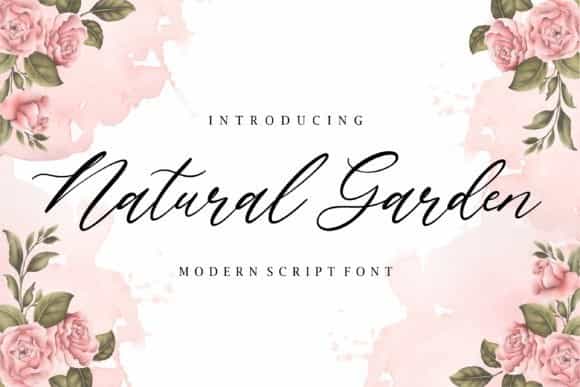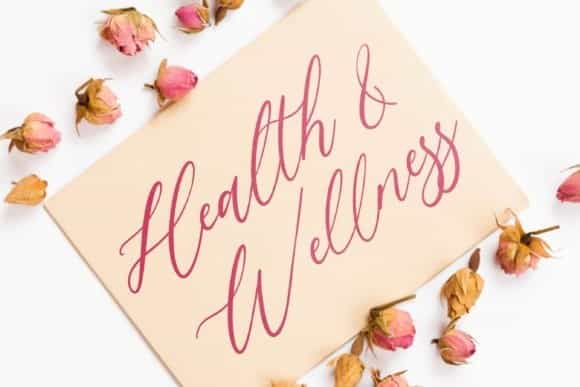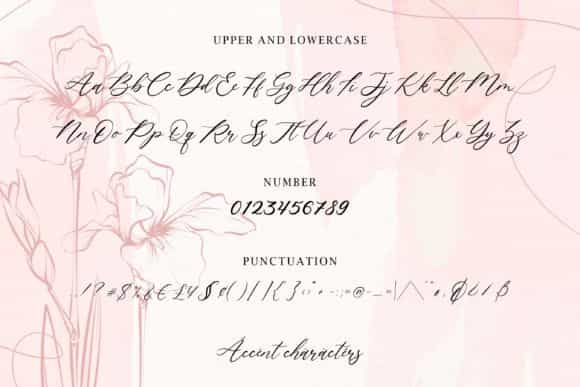
Natural Garden is a script font with an modern look that’s perfect, for logos, branding, invitations, stationery, social media posts and any design needing a handwritten feel. Elegant calligraphy encompasses a set of characters, numbers, a wide range of punctuation marks, ligatures, lowercase swashes at the end of words and symbols, for multiple languages.